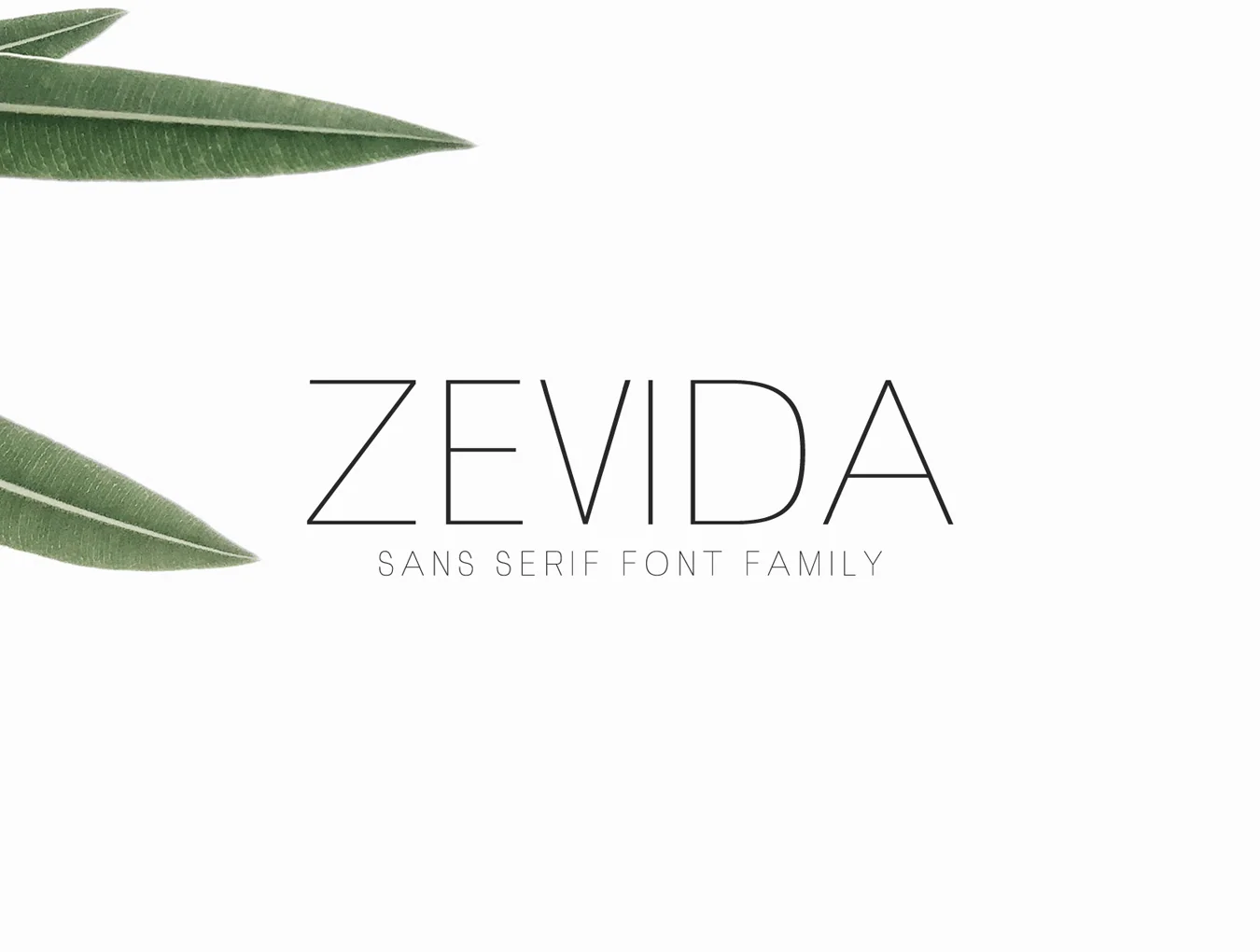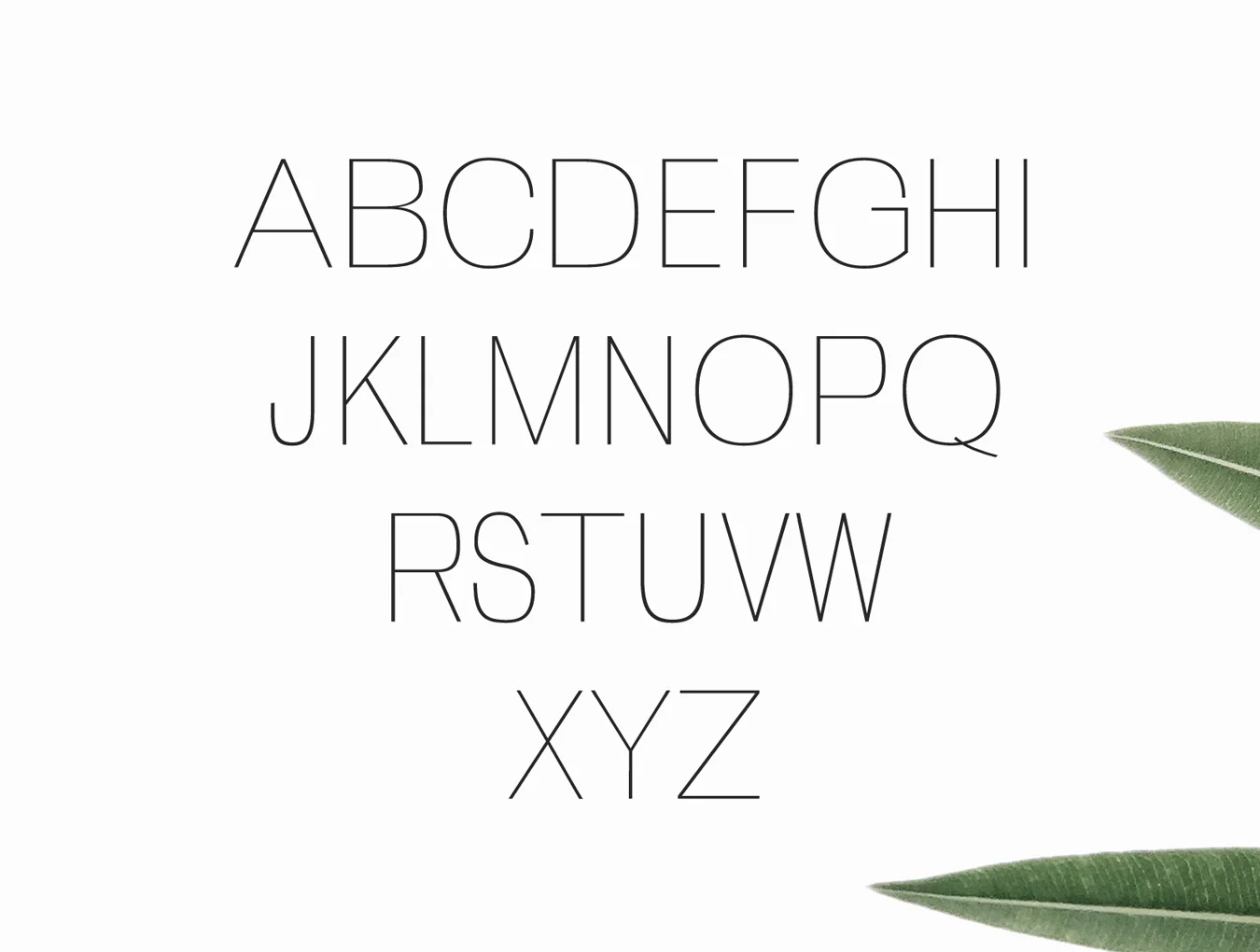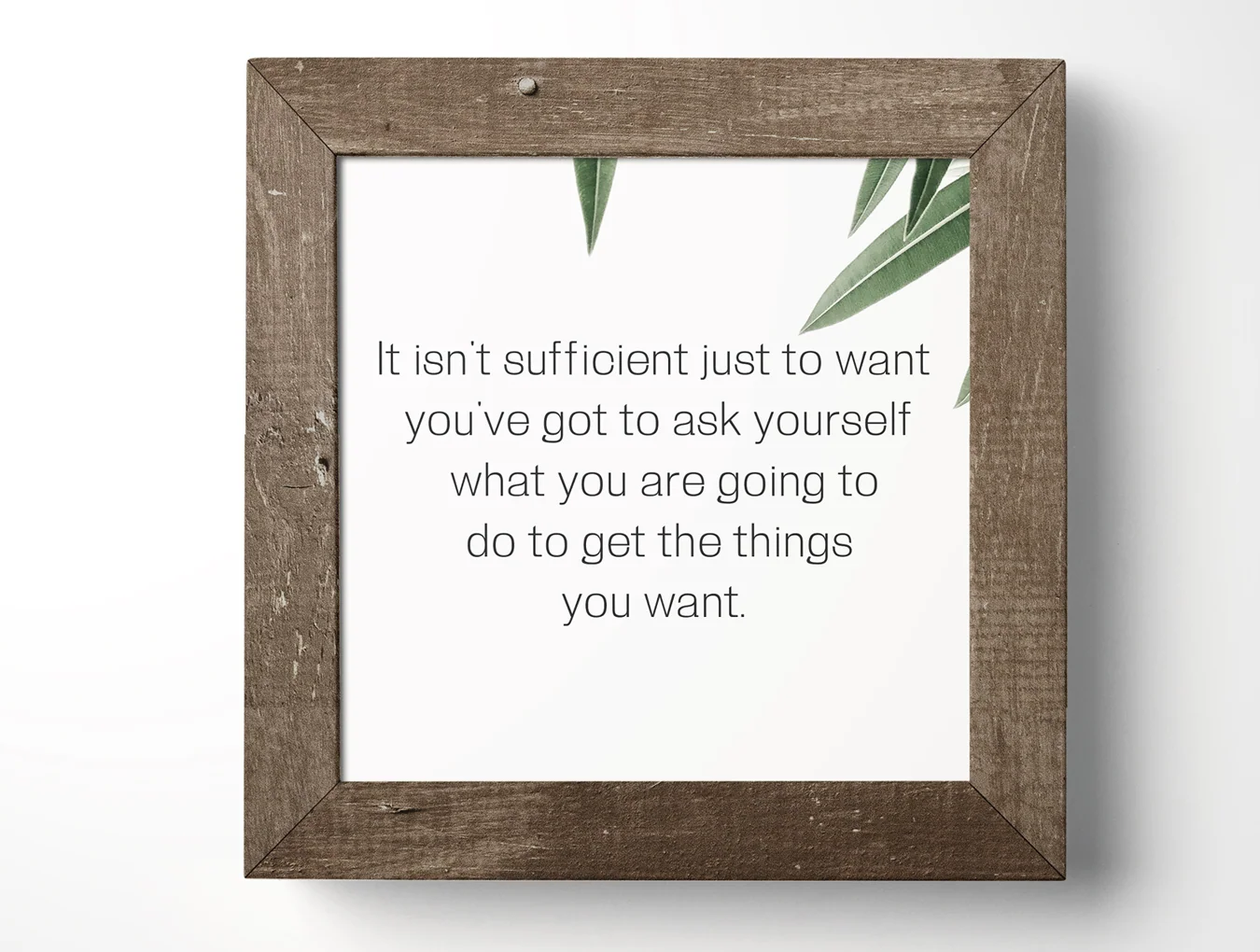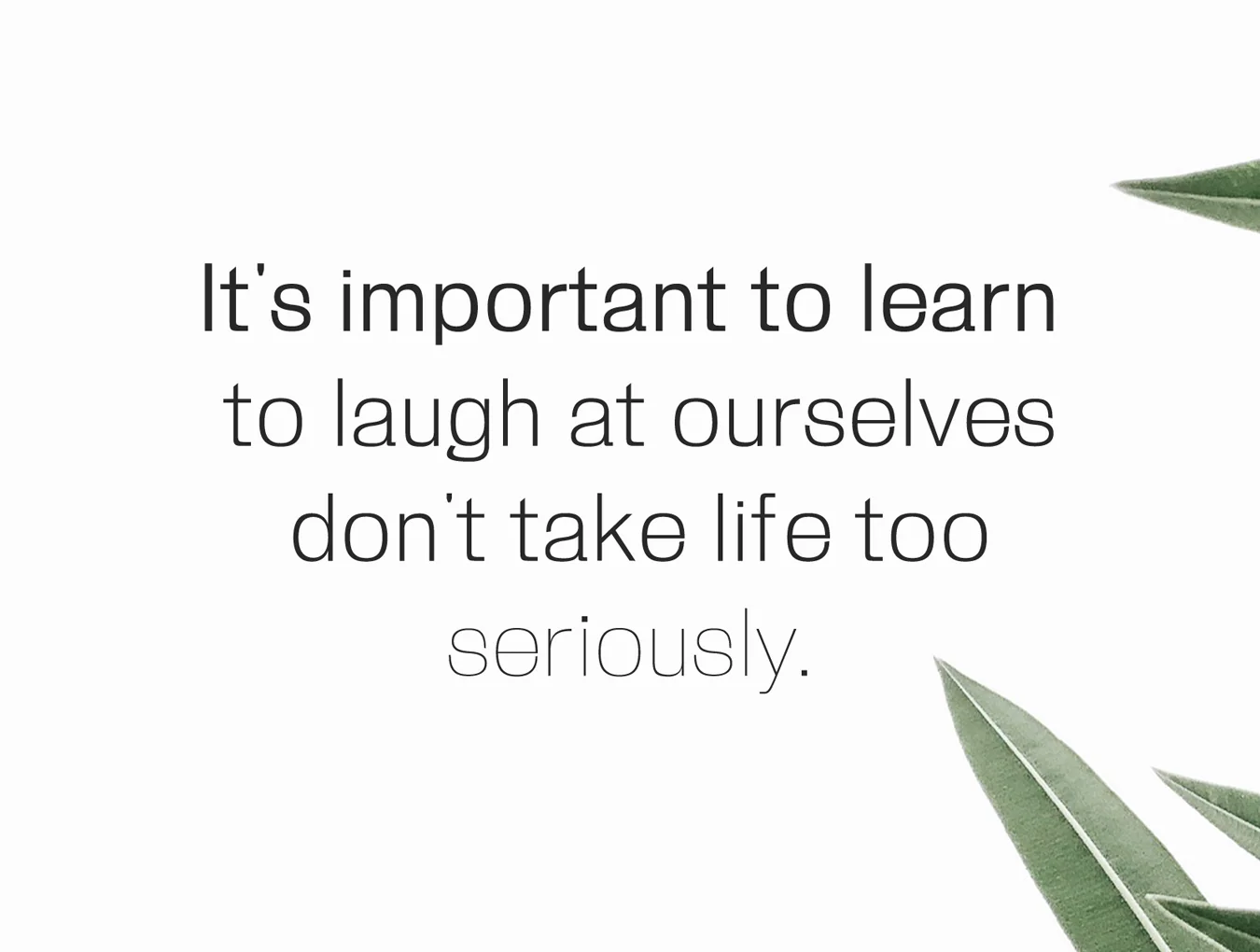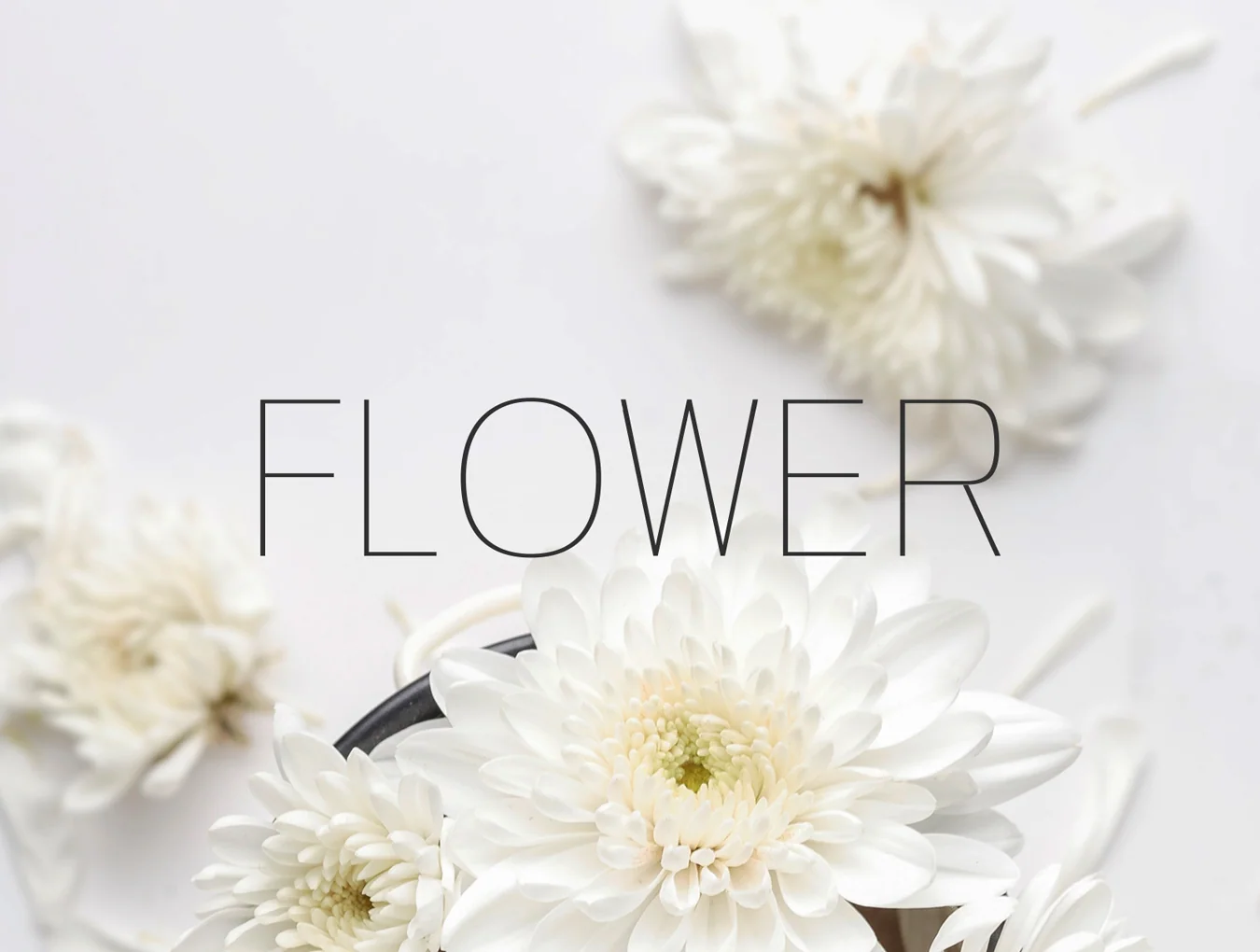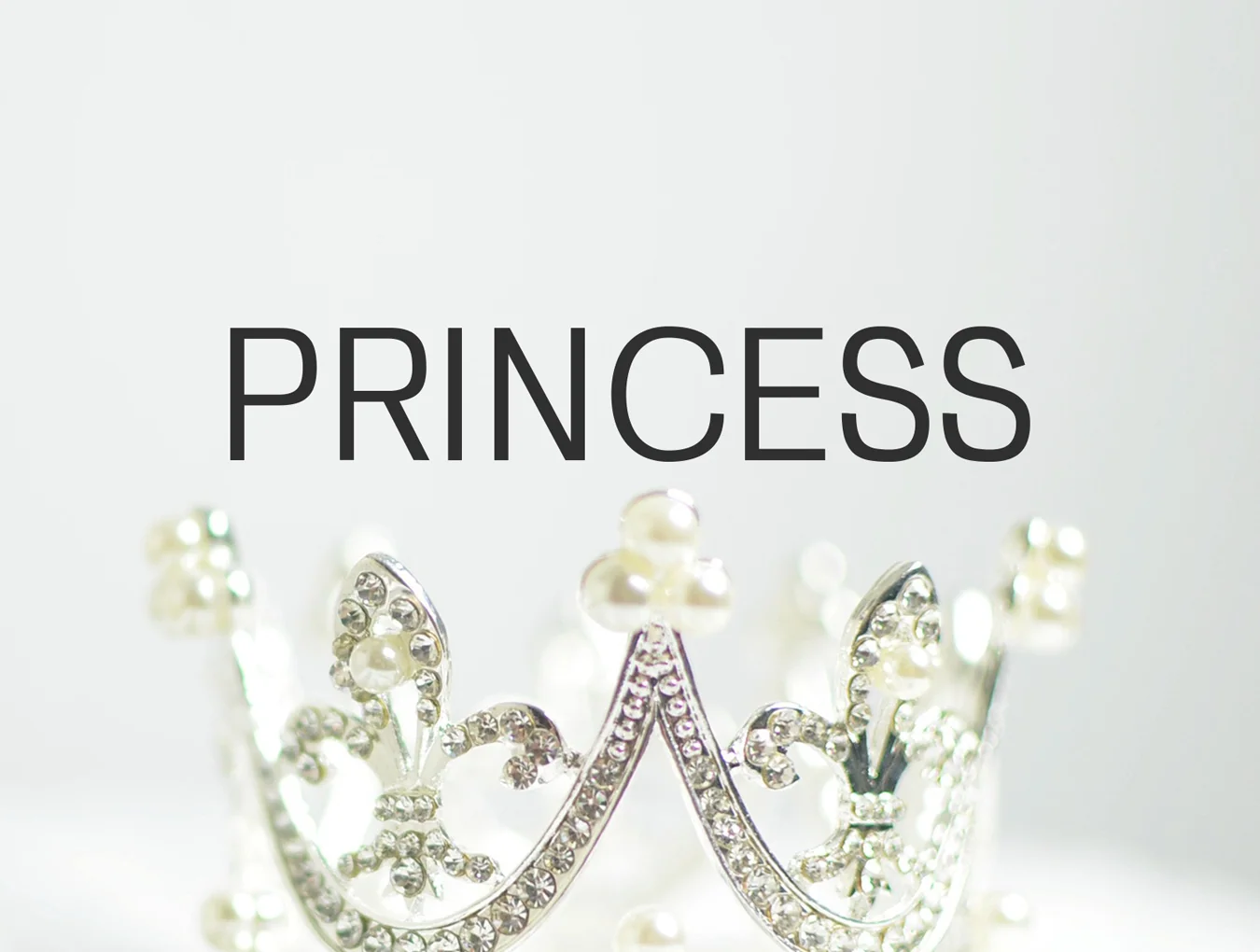
Zevida Sans Font
Zevida 4 sans-serif typeface family
Clean sans serif font
Regular, Medium, and Black styles
Zevida is a clean yet distinctive sans serif family designed to shine across logos, headlines, business cards, magazines, websites, invitations, headers, and brand visuals. Use spaced uppercase for an elegant feel, or mix capitals and lowercase for a timeless result. Includes four styles: Thin, Light, Regular, and Bold.